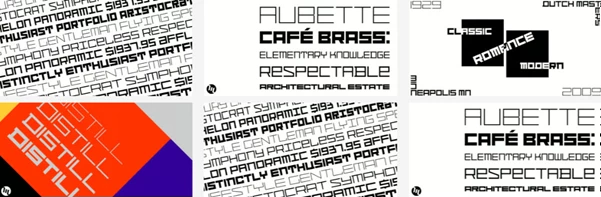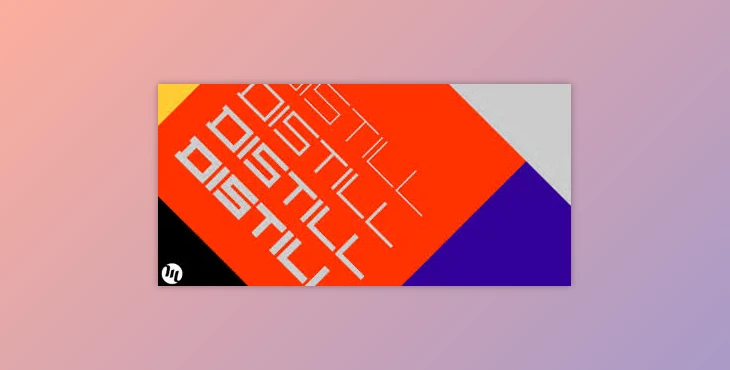
The Distil Font Family is based on the De Stijl movement from the 1920s and 30s, specifically the work of Theo van Doesburg, the lettering in the magazine and the Café Aubette. These pieces transformed the design world with geometric-inspired type, and Van Doesburg's visions were taken to such extremes that now, the De Stijl Font Family brings Van Doesburg's visions to us today. This font family is best used for any De Stijl-inspired neo-constructivist work or as cutting-edge troubleshooting text for contemporary endeavours.
The Distil Font Family is offered in 12 fonts, in total, four weights, condensed, regular and expanded widths. The implied additional characters render an even larger font family that might be necessary for developers and designers to get the perfect feel. Use this for any virtual or in-person creation that needs an authoritative font presence while still aligning with the professionalism of assured awareness.